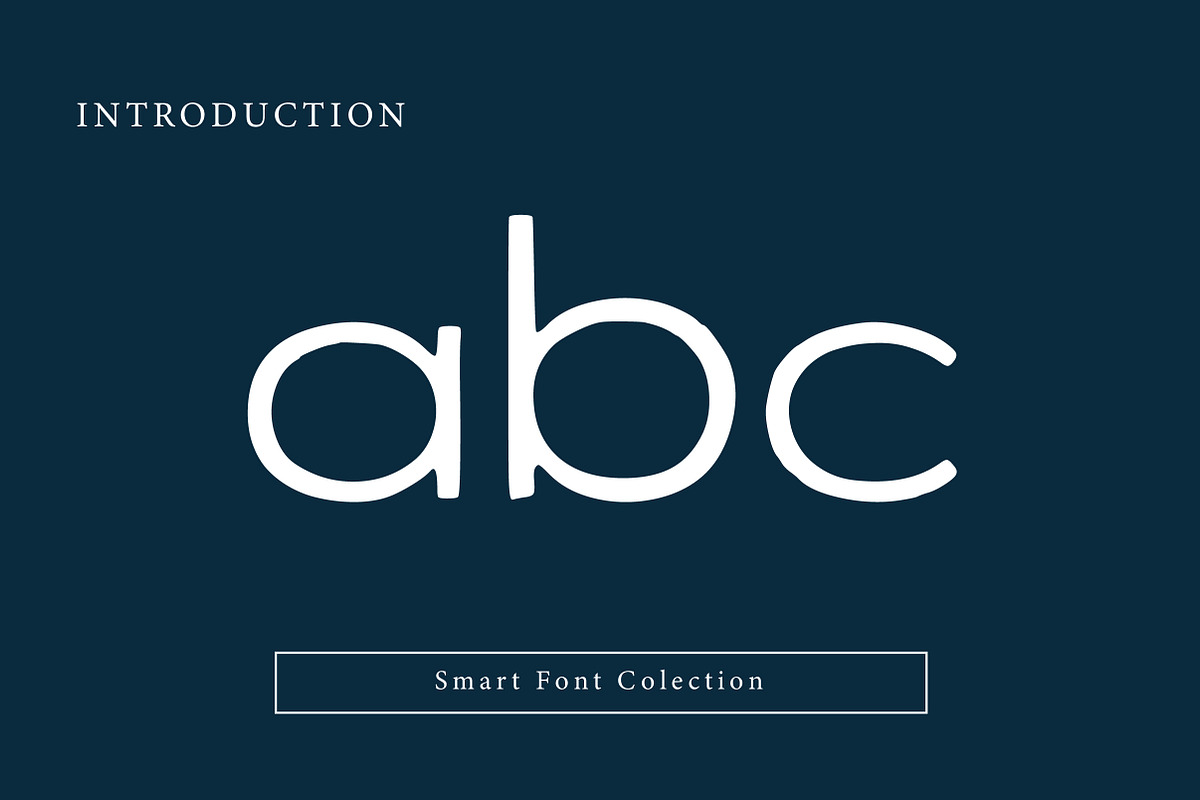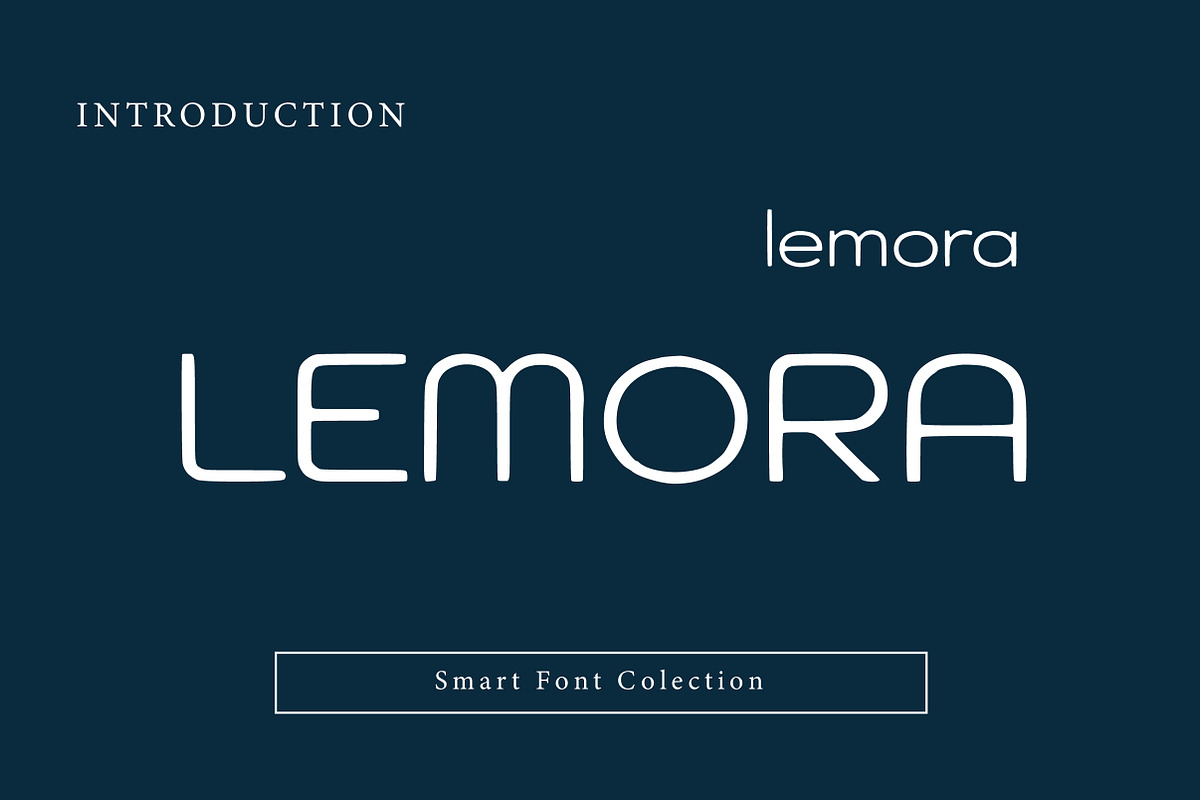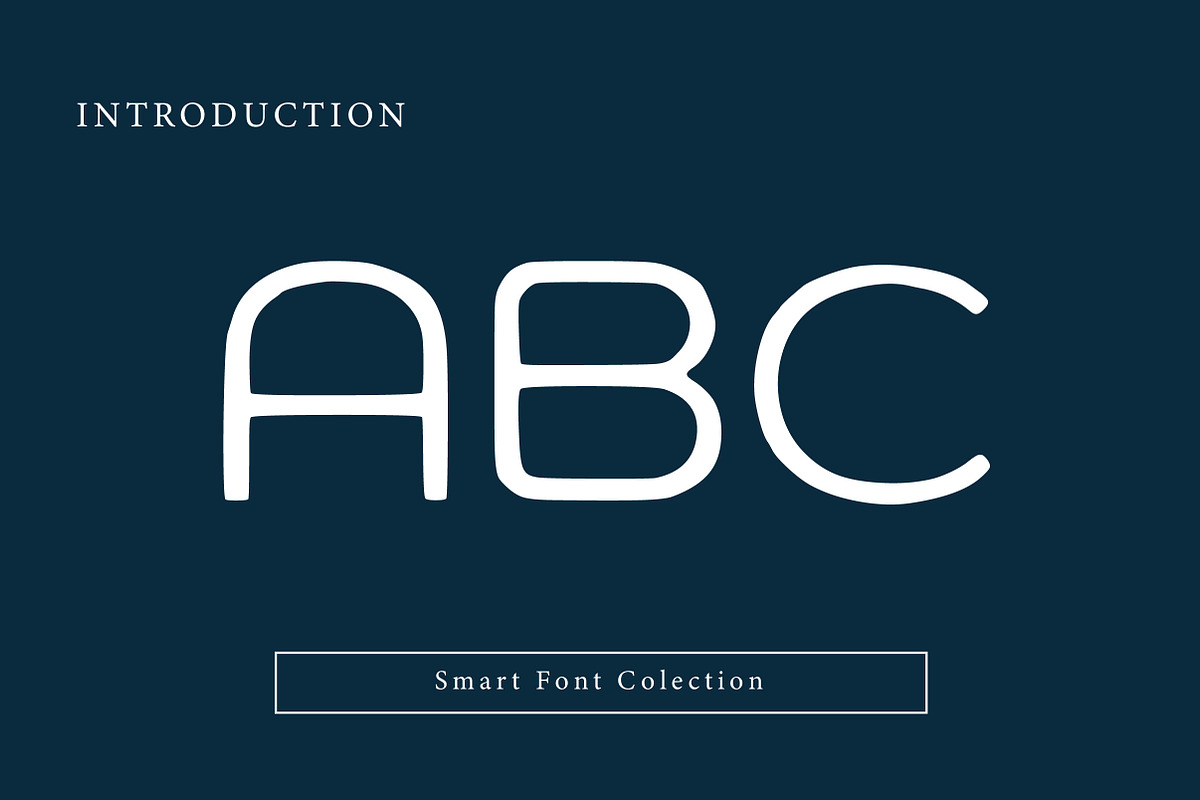
Lemora
Lemora is a modern rounded sans-serif typeface with a soft, minimal, and friendly personality. Its smooth curves, open letterforms, and consistent stroke weight make it perfect for contemporary branding, digital products, logos, UI/UX design, mobile apps, and creative headlines. Lemora balances elegance with approachability, offering excellent readability while maintaining a distinctive, modern aesthetic. It works beautifully across web, print, and screen-based designs, especially for startups, lifestyle brands, and modern visual identities.